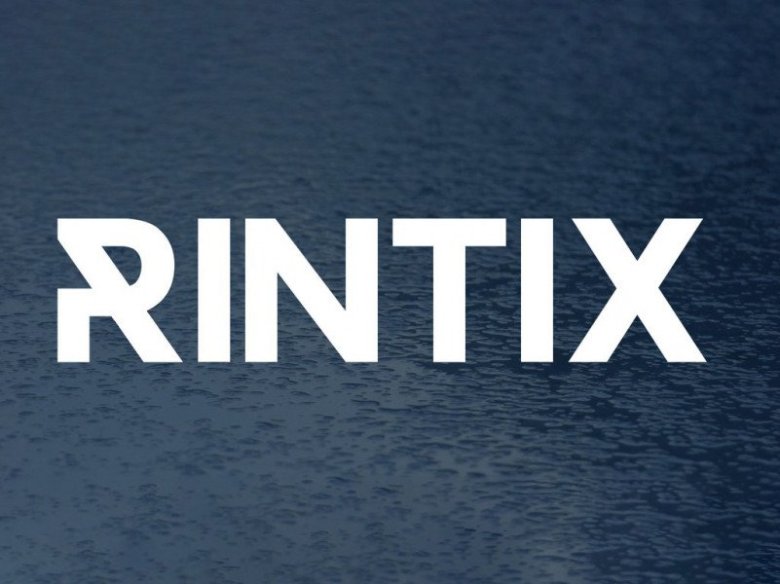
Rintix Font
This is industrial typeface font with a masculine style. This font is stylish, clean, clear, firm and still looks luxurious. This font is suitable for use in business, business cards, logo names, brochures, posters etc.
This font included alternate typeface for each alphabet A-Z that you can use for logos and more.